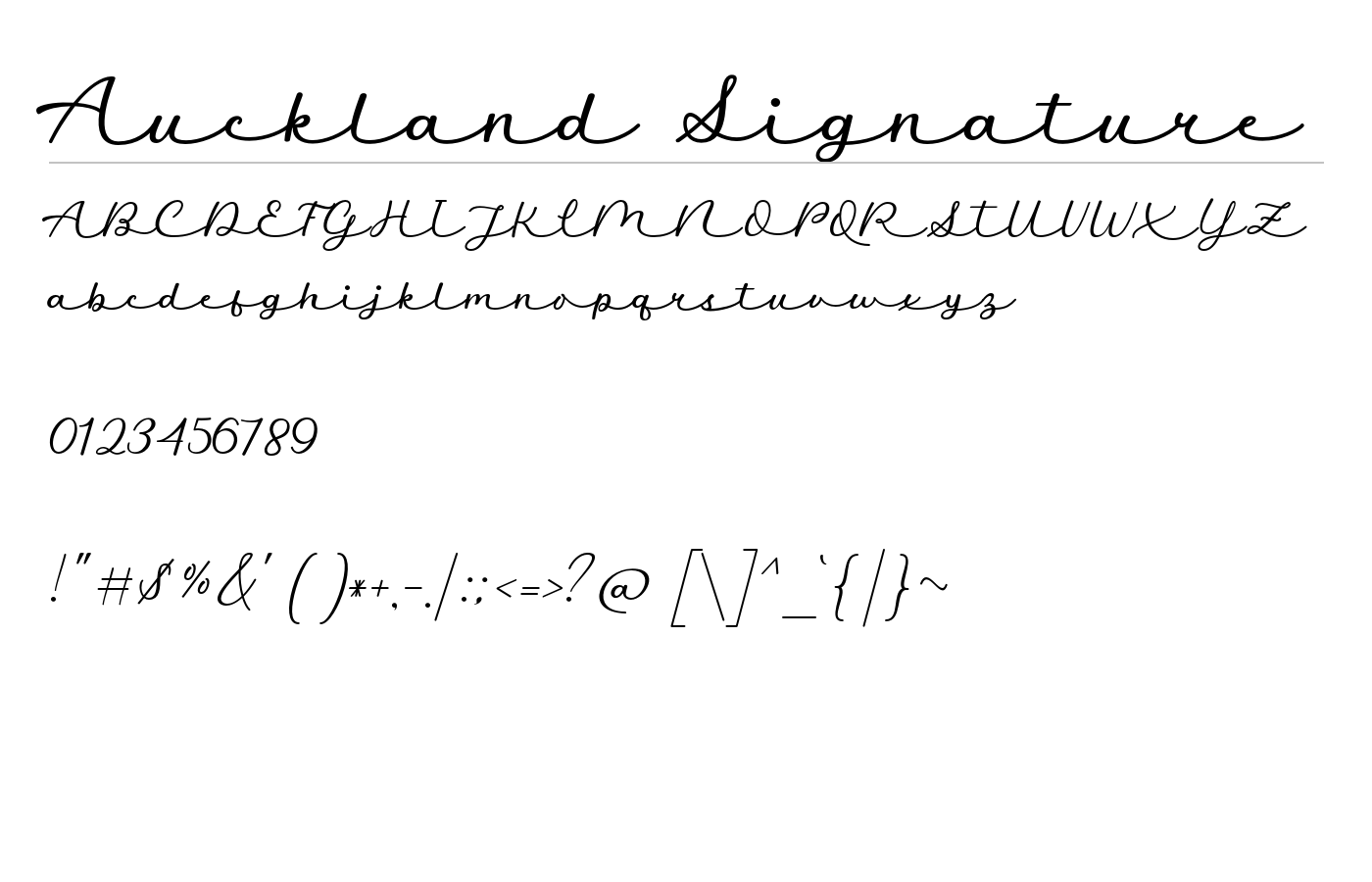
Auckland Signature Font is a delicate, elegant script typeface that mimics natural handwritten calligraphy with smooth, flowing lines and a slender weight. It has a refined and personal feel, making it ideal for branding, invitations, and stylish editorial designs where a sophisticated, approachable touch is desired. This font works beautifully for projects that need a chic and graceful handwritten look.
Auckland Signature Font
About Auckland Signature Font